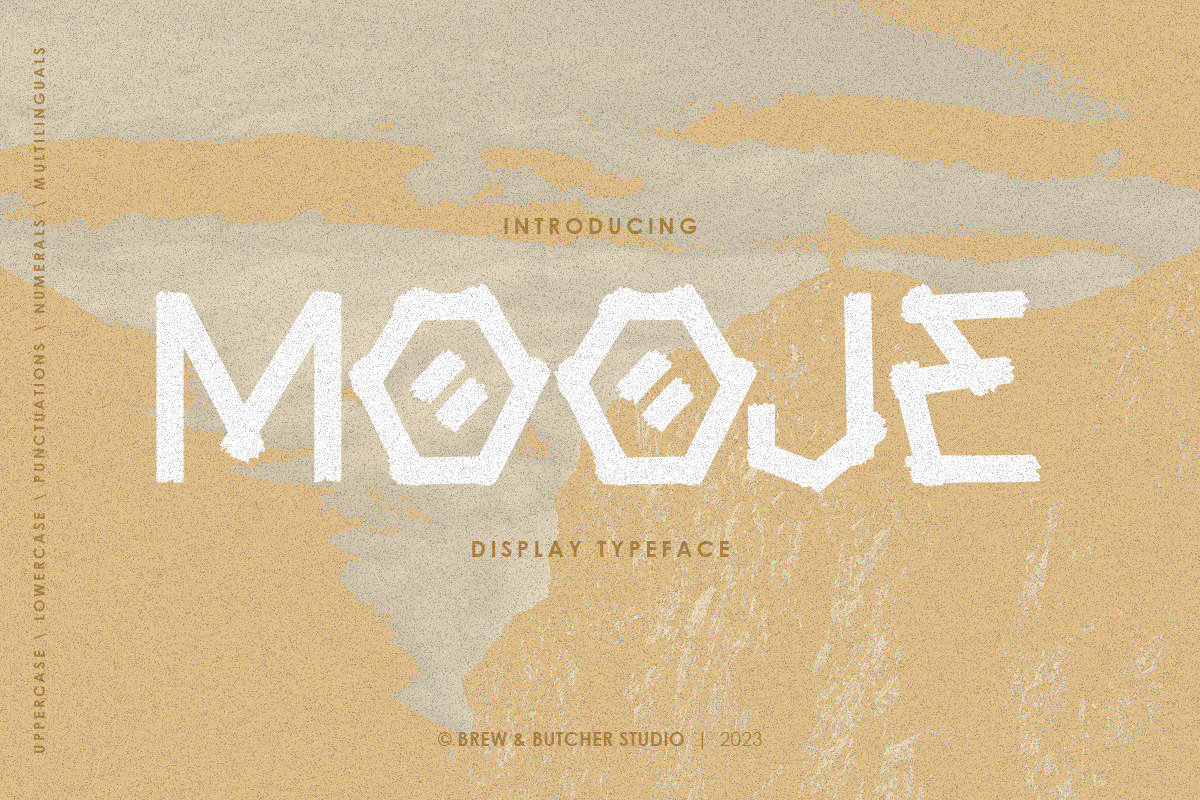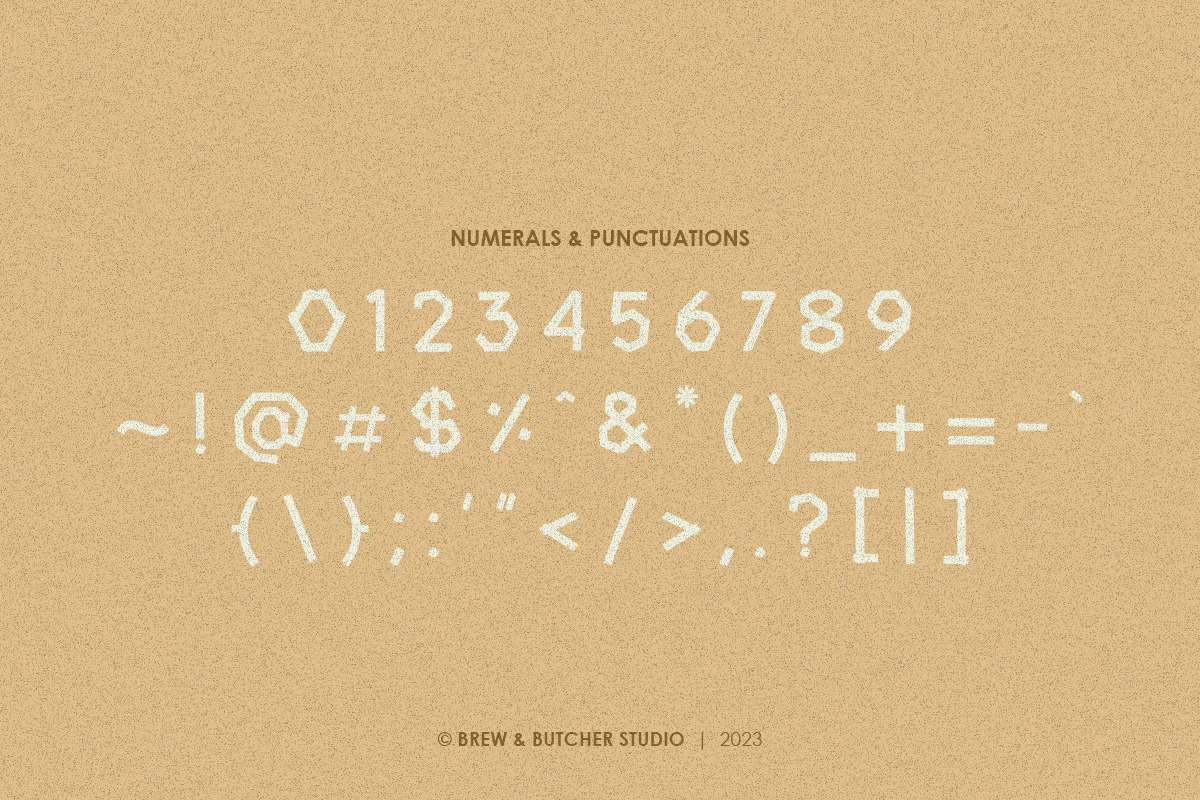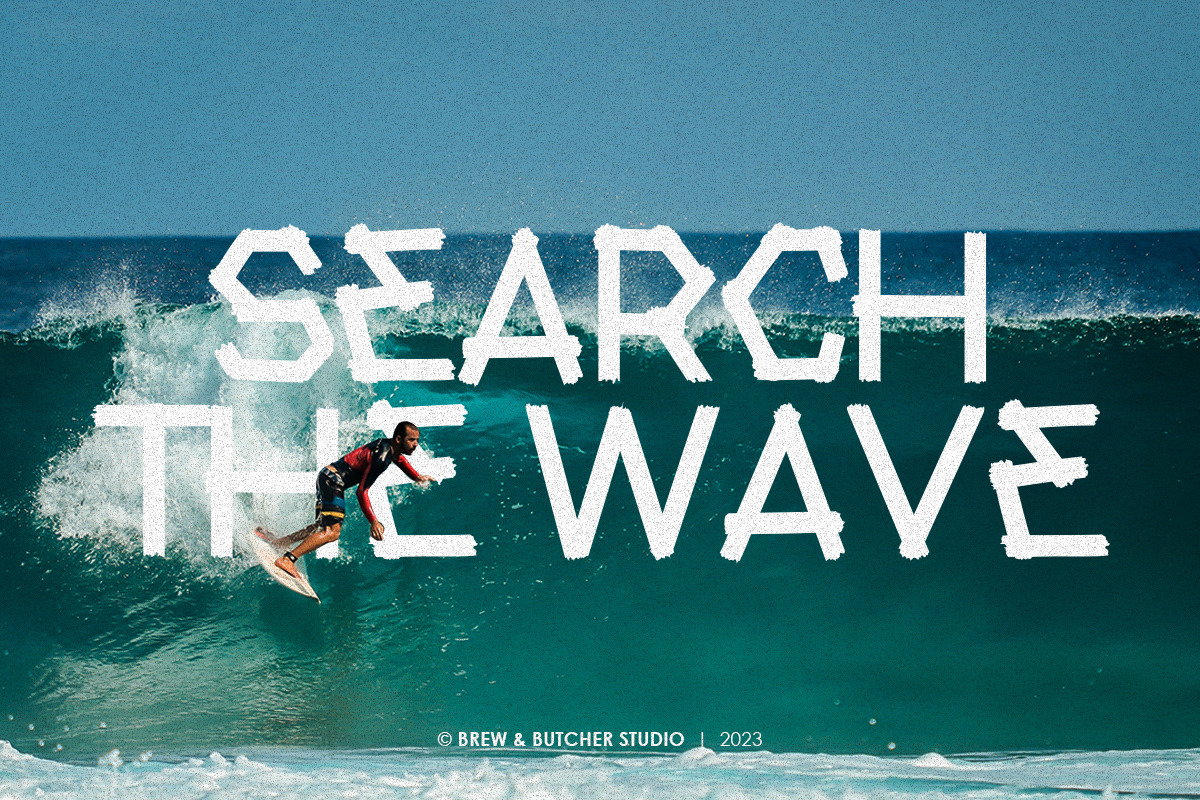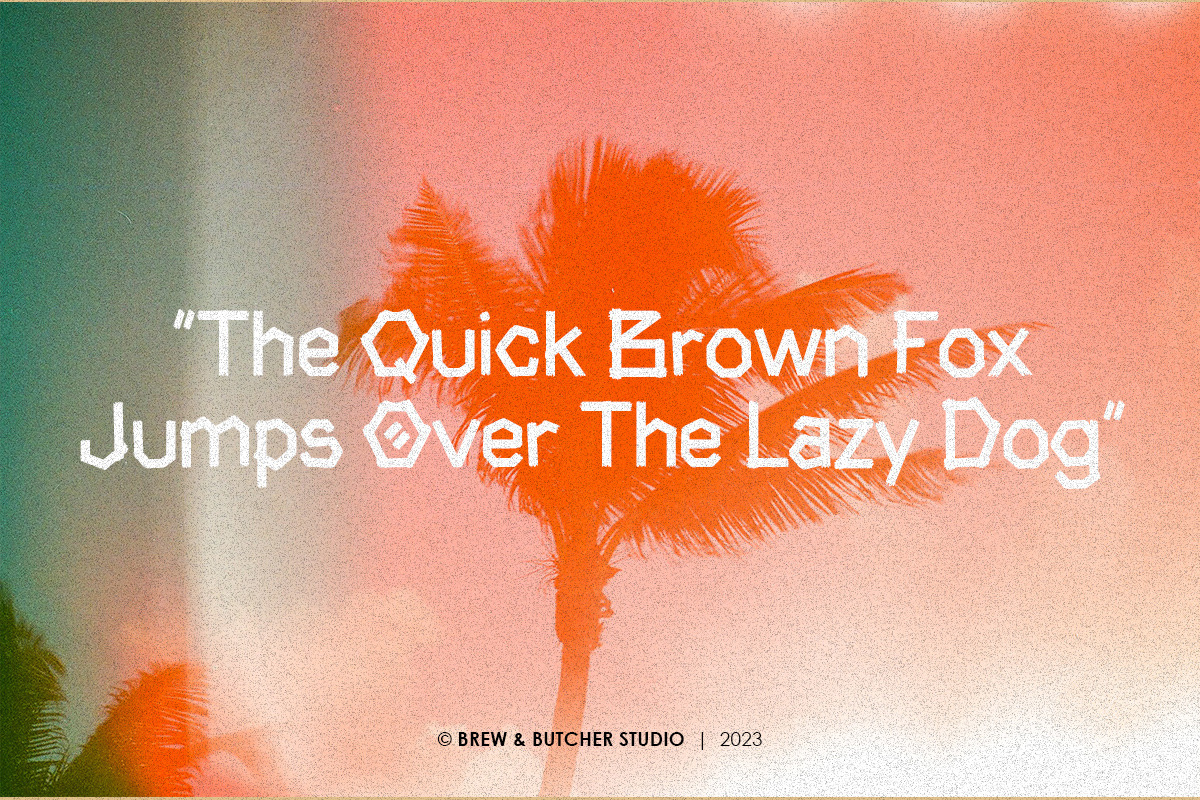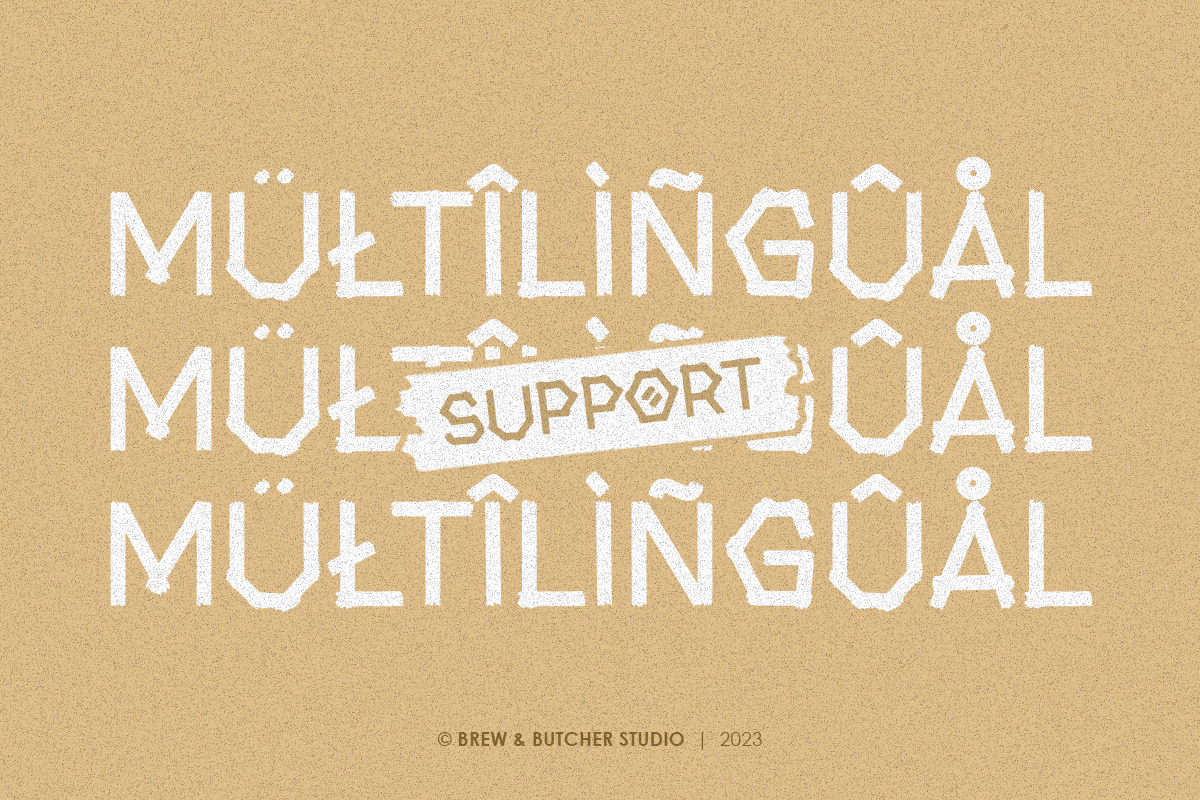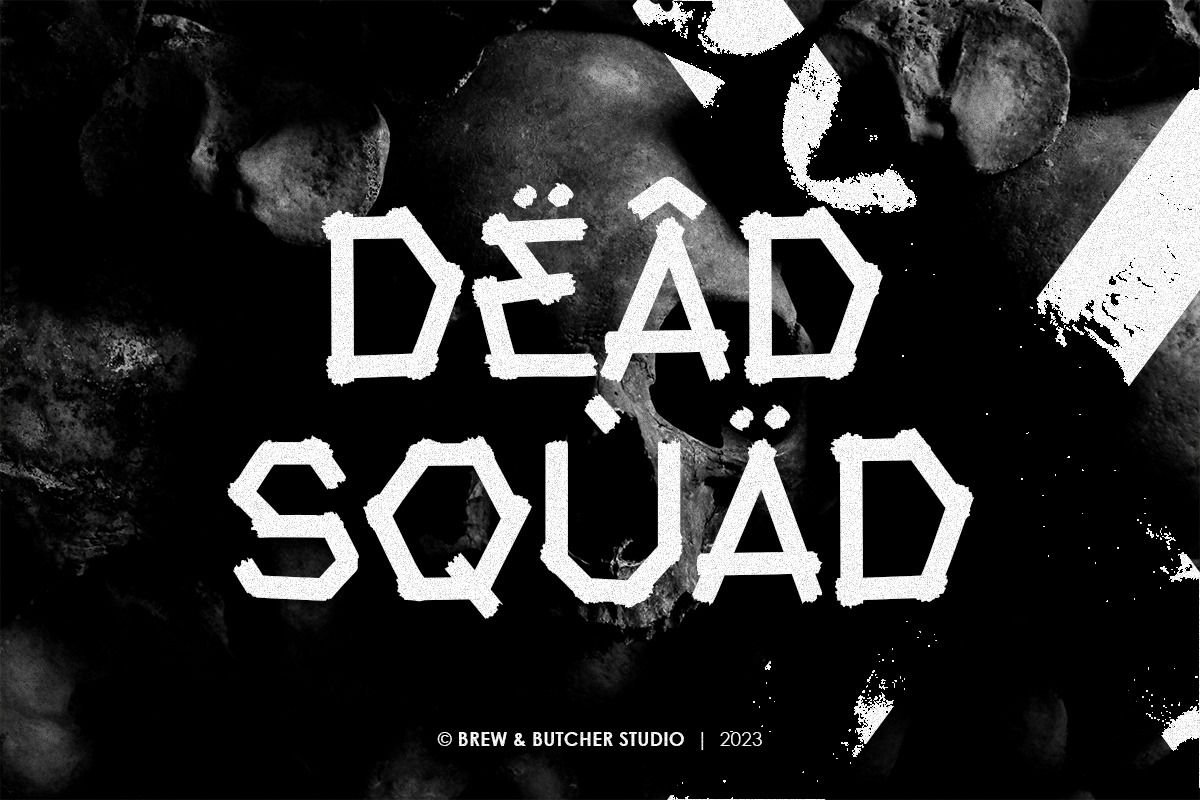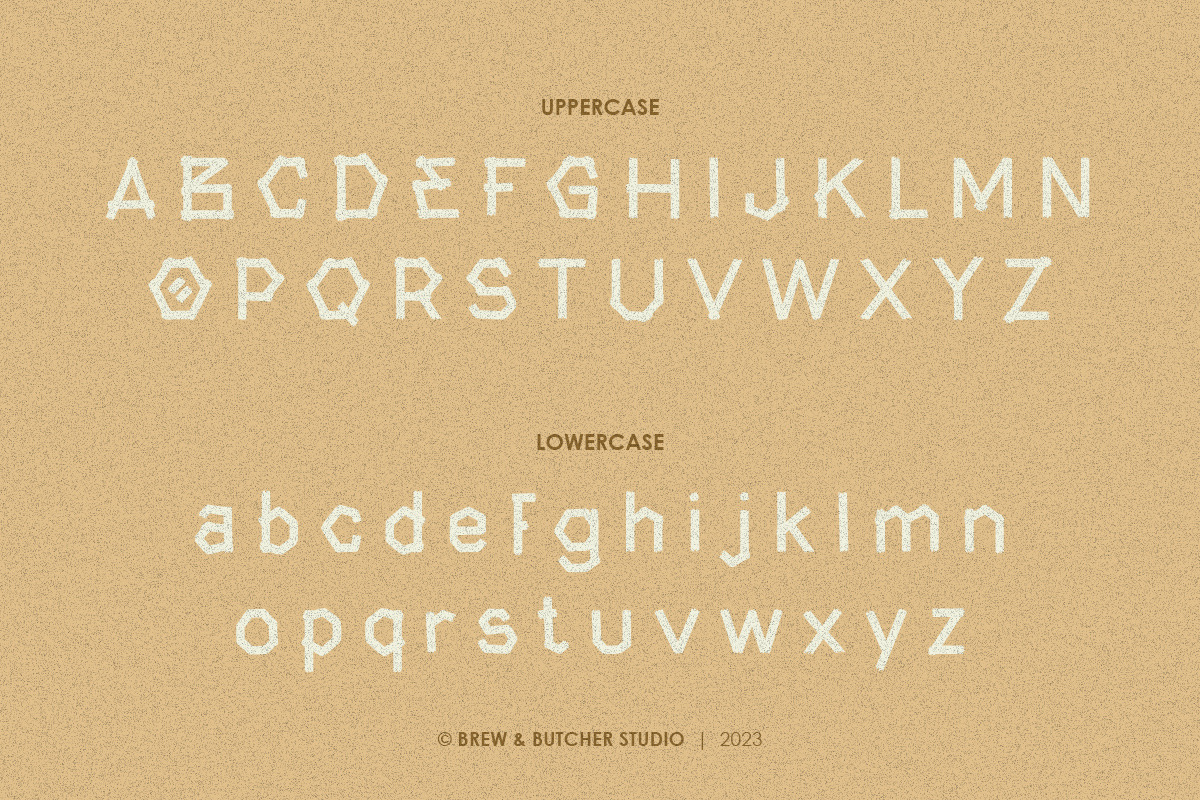
Mooje | Display Typeface
Mooje is a tape-inspired font. With a stiff and firm style, it gives the impression of being sturdy and strong. It has a unique and very interesting letter shape. This font is best to use for header or headline, poster, flyer, banner, landingpage, portfolio, name write, album covers, and etc.
- Multilanguage